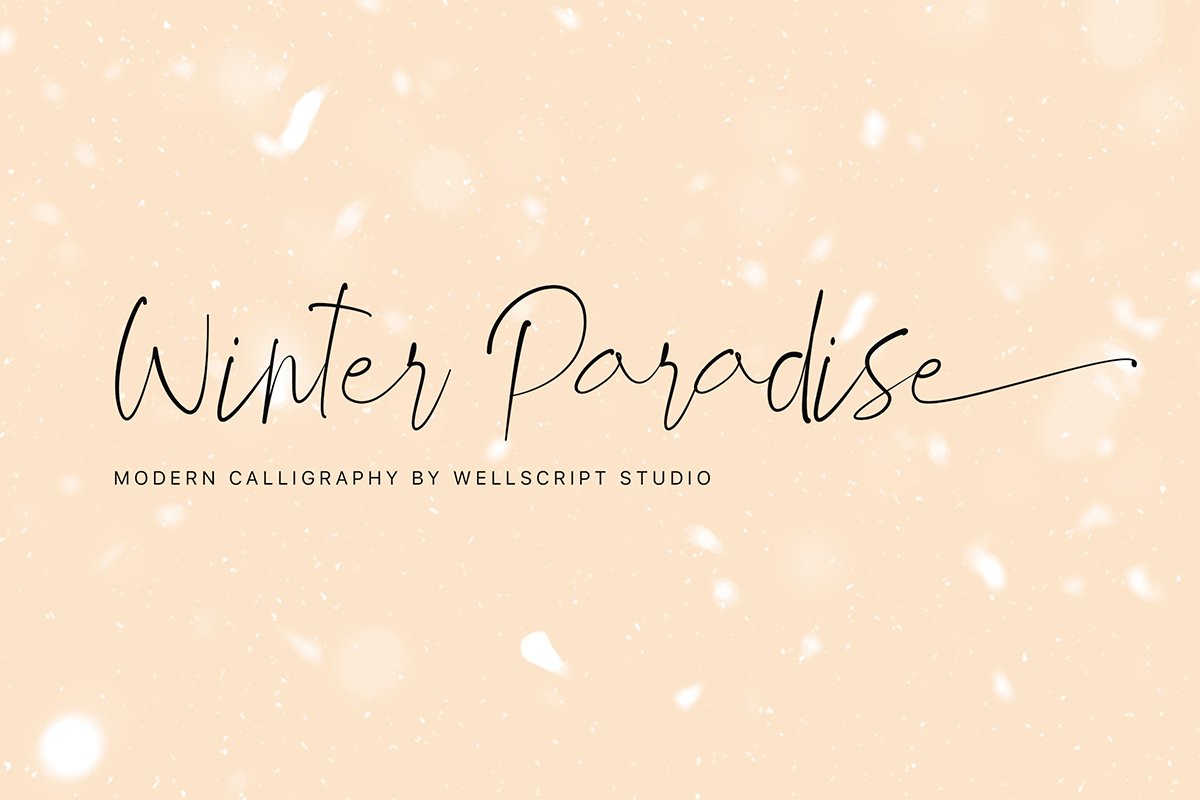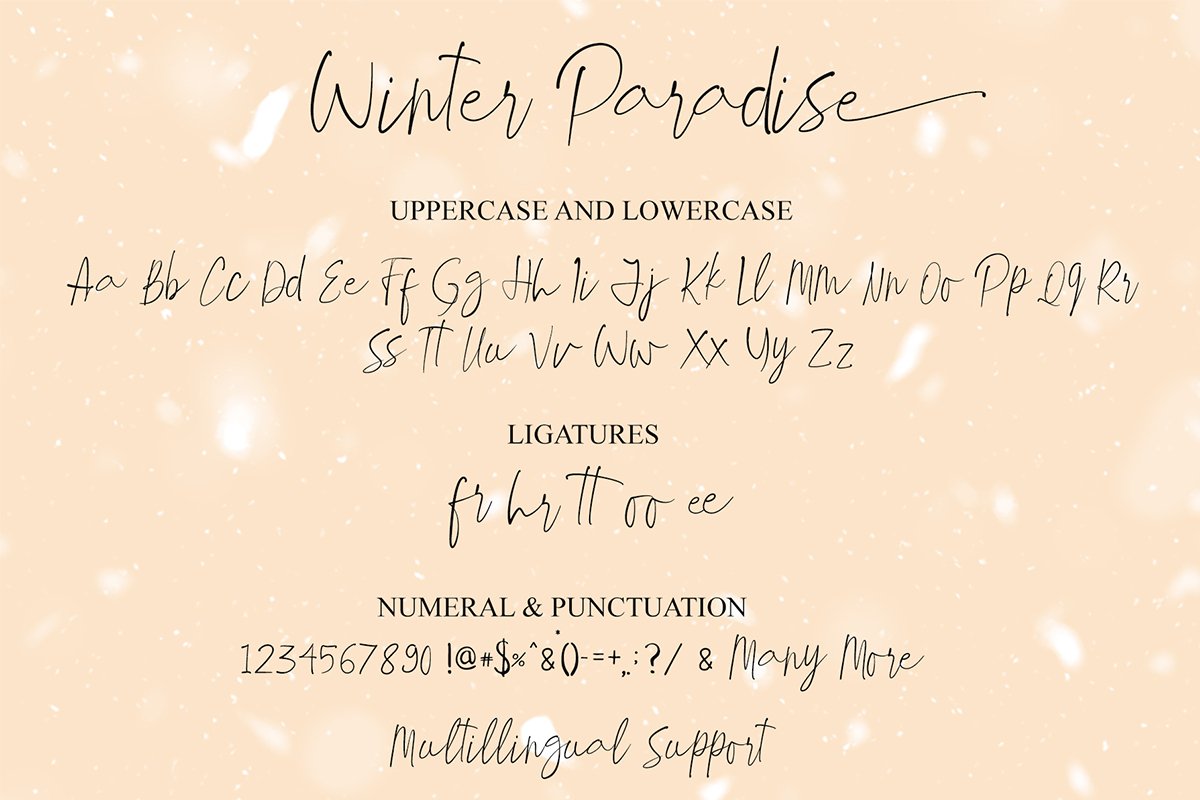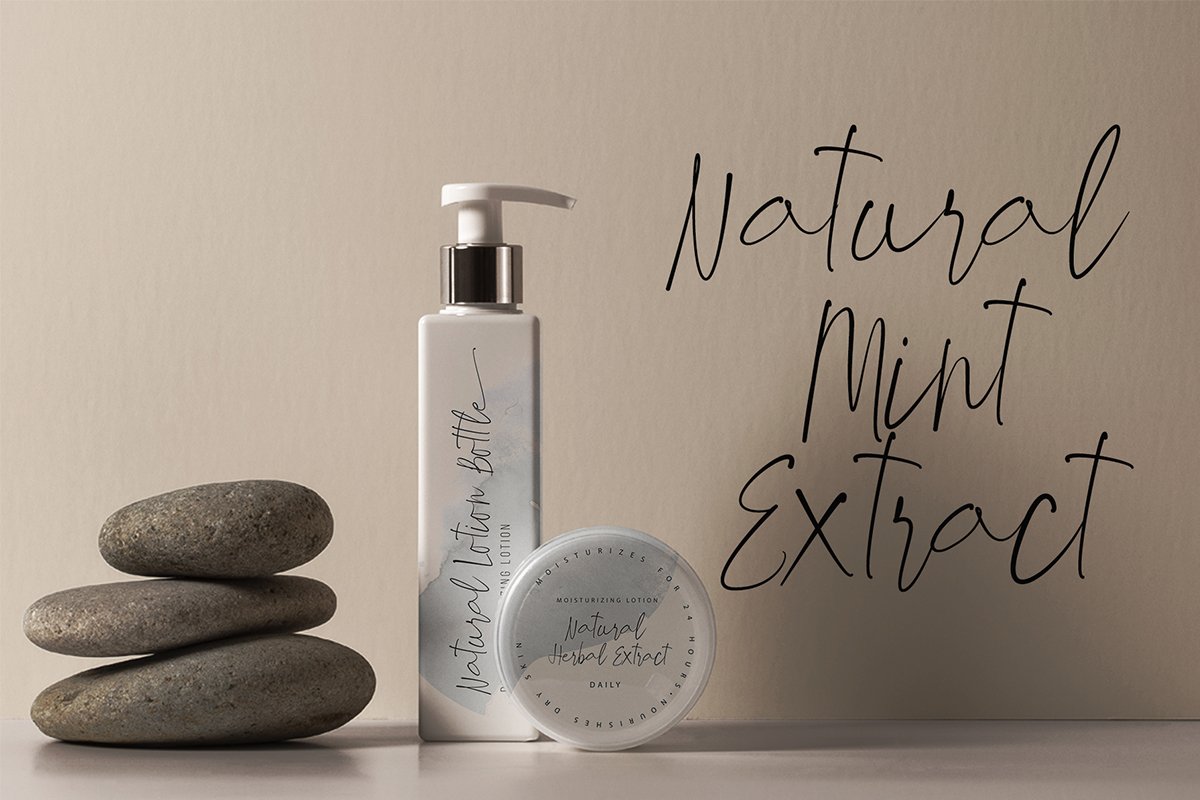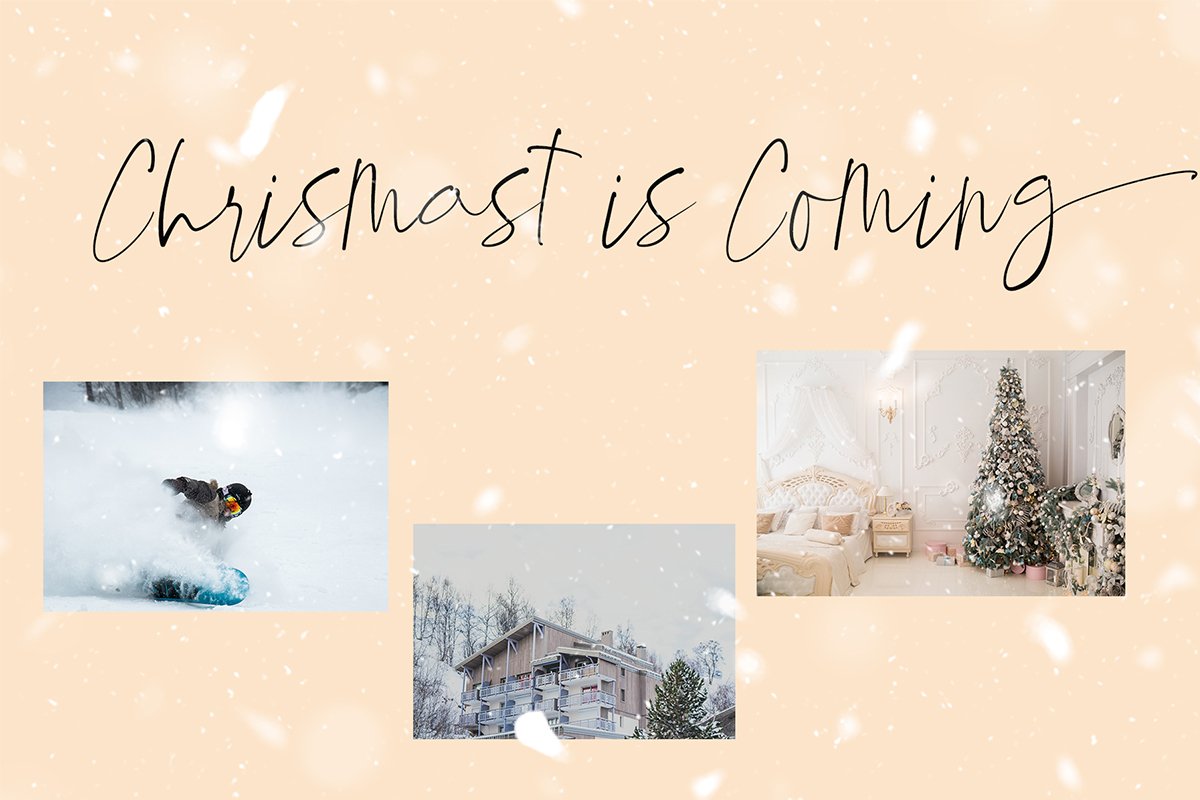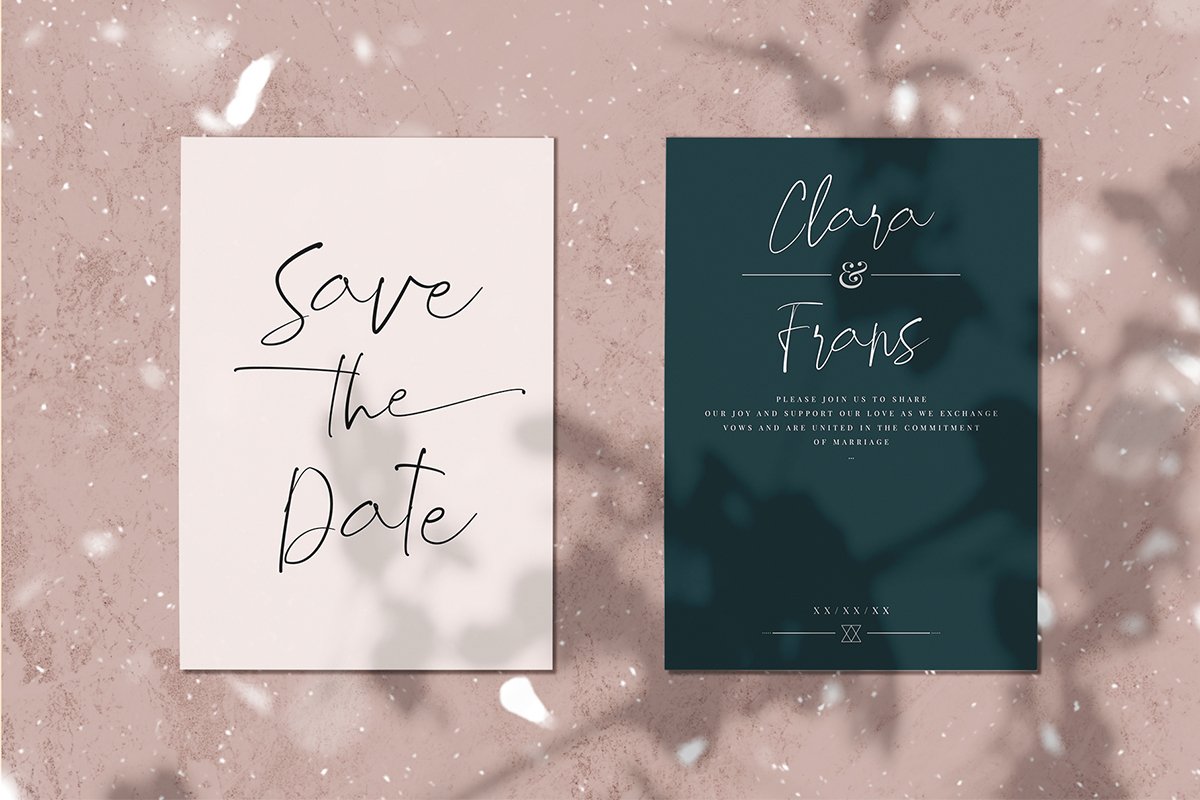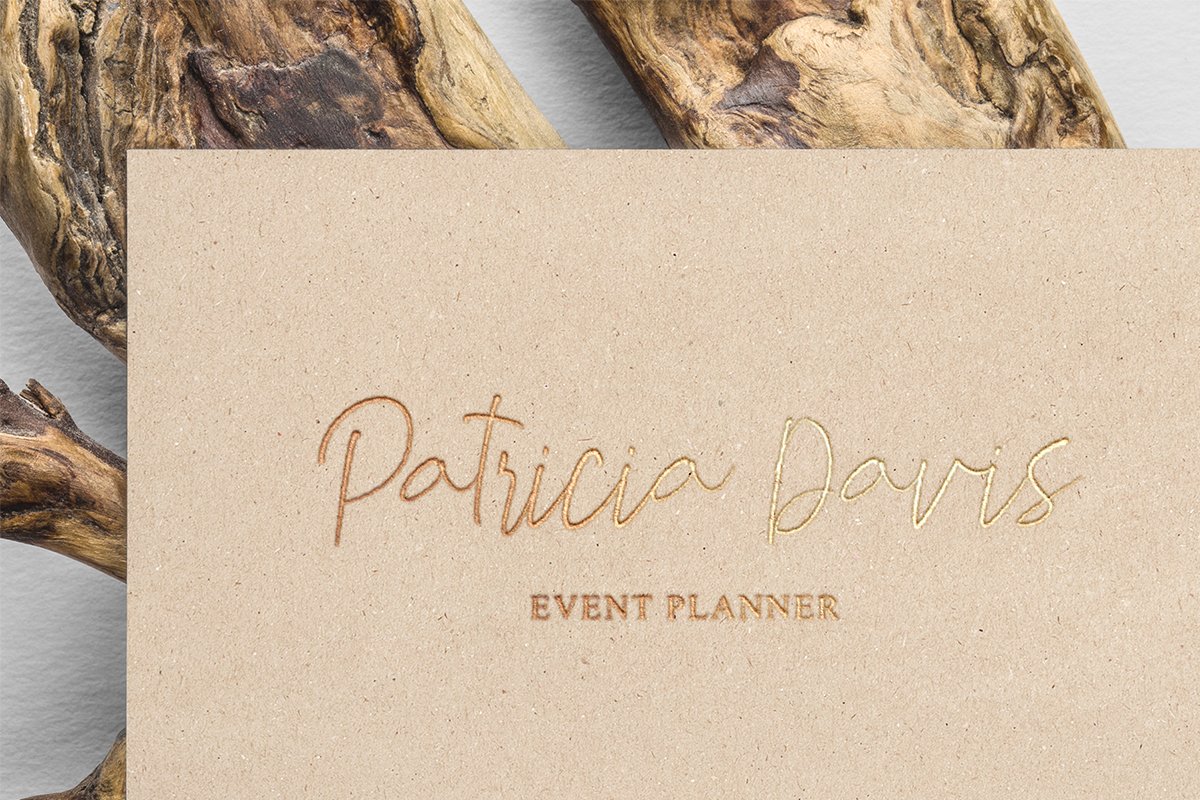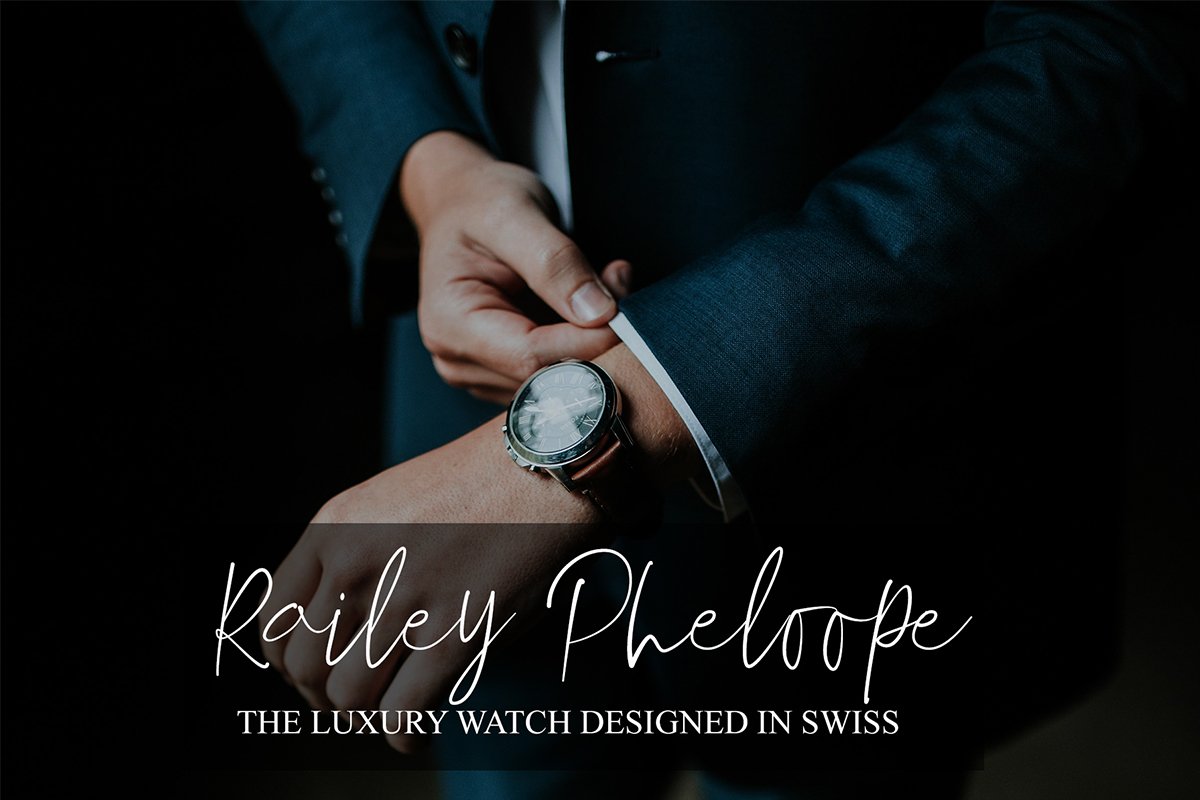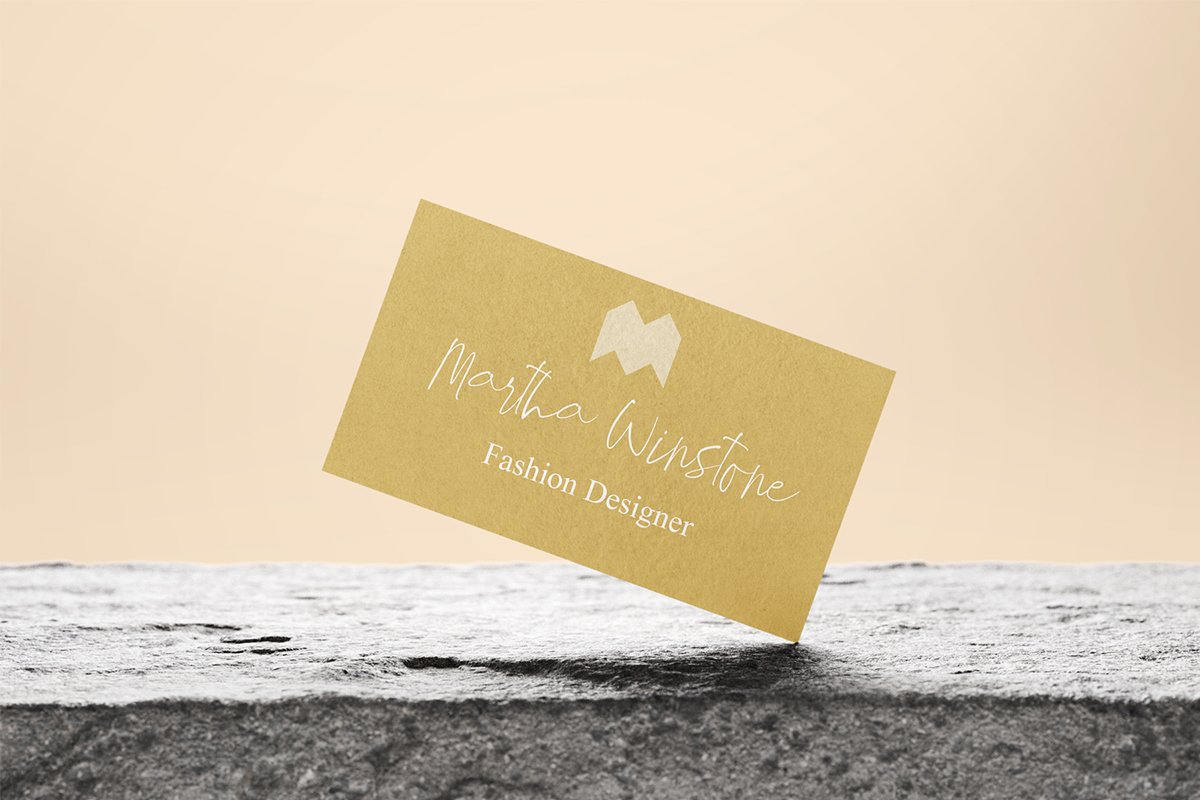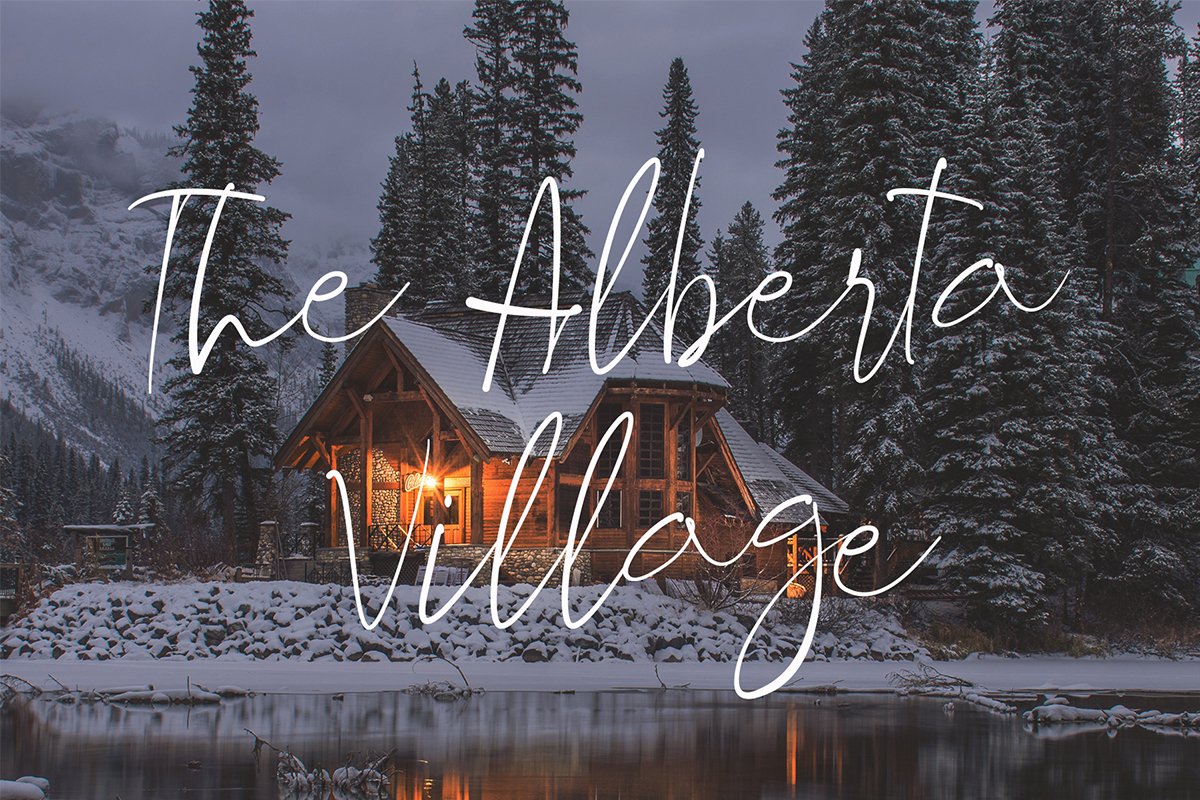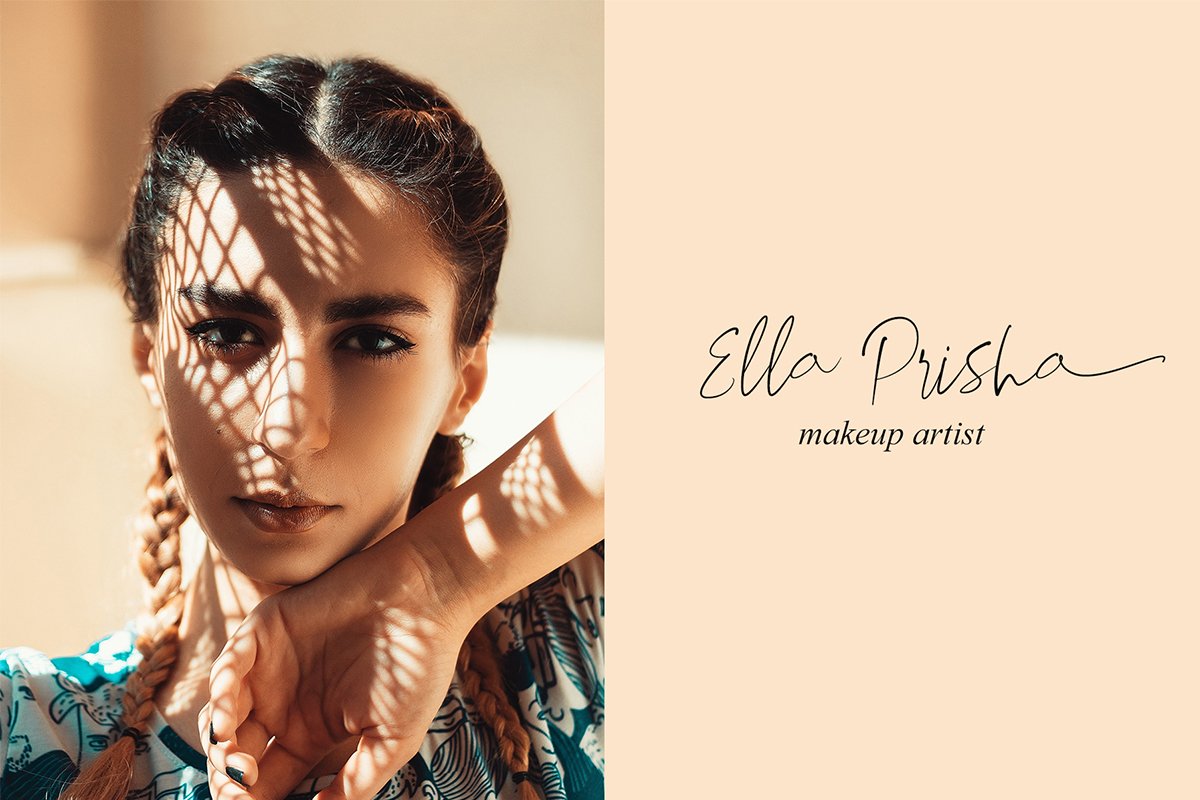
Free Demo Winter Paradise Script Font is an awesome font with a marvelous hand-lettering style. This free font is a fine-looking font that will make your clients amazed at your work. Also, this free font can be useful for wedding invitation, business card, logo, branding, gift card and more. However, this font is a personal use license, hence you need to get more features for using it on commercial projects. You can check it out by clicking the premium version button below.
Demo Winter Paradise Font